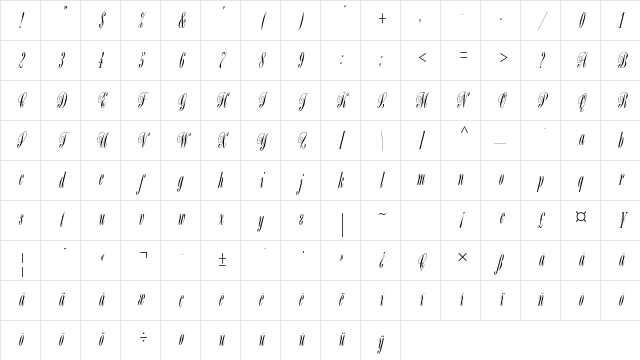
Bordeaux Script Std Regular
Designer: David Quay
Design Context for Bordeaux Script Std
Bordeaux Script Std flows with the natural rhythm of handwritten lettering, making it ideal for designs that call for warmth and personal expression.
Font Pairing: Combine Bordeaux Script Std with a simple geometric sans for maximum contrast - the tension between flowing curves and clean structure is a classic typographic pairing.
Pro Tip: Use Bordeaux Script Std for short runs of text - names, titles, or taglines. Extended body copy in script faces tires the eye quickly.